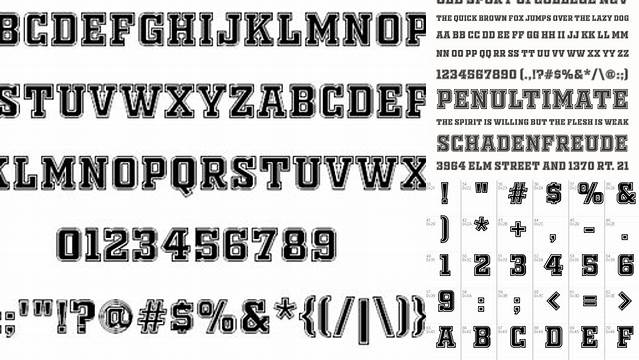
Hey guys! Are you looking to add a touch of classic collegiate charm to your designs? Look no further! The Old Sport 01 College NCV font is here to save the day. This font screams vintage vibes, reminiscent of old-school letterman jackets and university crests. In this comprehensive guide, we'll dive deep into everything you need to know about this fantastic font – from where to download it for free to how to use it effectively in your projects. So, buckle up and let's get started!
What is Old Sport 01 College NCV Font?
Let’s kick things off by understanding what exactly the Old Sport 01 College NCV font is. This font is a display typeface, designed to emulate the classic collegiate or athletic lettering style. Think of those iconic university logos and sports jerseys – that's the aesthetic this font is going for. It typically features bold, blocky letters with a slightly condensed appearance, giving it a strong and impactful presence. The "NCV" in the name likely refers to the specific design characteristics or the creator's naming convention, but the key takeaway is that this font is designed for headings, titles, logos, and anything that needs a bold, sporty feel. This font isn't just about aesthetics; it's about evoking a feeling. The feeling of school spirit, the thrill of the game, and the nostalgia of classic sports imagery. Whether you're designing a poster for a local sports team, creating a logo for a university club, or simply adding a vintage touch to your project, the Old Sport 01 College NCV font can be a powerful tool in your design arsenal. The beauty of this font lies in its versatility. It can be used in a wide range of projects, from digital designs to print materials. Imagine using it for the header of your sports blog, or for the title of a flyer advertising a school event. The possibilities are endless! And the best part? You can often find it available for free download, making it an accessible option for designers of all levels. However, it's always essential to check the licensing terms before using any font, especially for commercial projects. Make sure you're aware of any restrictions or requirements for attribution. But overall, the Old Sport 01 College NCV font is a fantastic choice for adding a touch of vintage flair and athletic spirit to your designs.
Tips for Using Old Sport 01 College NCV Font in Your Designs
Okay, you've got the Old Sport 01 College NCV font installed and ready to go. But how do you actually use it effectively in your designs? This font, with its strong, bold character, is best used for headings, titles, and logos where you want to make a statement. It's not really designed for body text, as its condensed nature can make it difficult to read in large blocks. Think about where you want to grab the viewer's attention. That's where this font shines. Imagine using it for the title of a sports-themed poster, or for the logo of a university club. The key is to use it sparingly and strategically. Don't overwhelm your design with too much of this font. It's best paired with a simpler, more legible font for body text. This creates a nice visual contrast and ensures that your message is clear. When it comes to color, the Old Sport 01 College NCV font looks fantastic in classic collegiate colors like navy blue, crimson red, forest green, and gold. Think about the colors you often see associated with universities and sports teams. These colors will help to reinforce the vintage athletic feel. But don't be afraid to experiment with other color combinations as well! The font can also look great in black and white, or in more modern, unexpected color palettes. Consider the overall tone and style of your design and choose colors that complement the font and your message. In terms of size, the Old Sport 01 College NCV font generally looks best when used at a larger size. This allows its bold, blocky letterforms to really stand out. But again, it's all about balance. You don't want the font to be so large that it overwhelms the rest of your design. Think about the hierarchy of your design and use the font size to guide the viewer's eye. Finally, consider the spacing between the letters and lines of text. Because this font is condensed, it's often helpful to increase the letter spacing (also known as tracking) slightly to improve readability. You may also need to adjust the line height (also known as leading) depending on the size of the font and the amount of text you're using. By following these tips, you can effectively use the Old Sport 01 College NCV font to create designs that are both visually appealing and communicate your message clearly. Remember, it's all about experimentation and finding what works best for your particular project. Have fun and get creative!
Alternatives to Old Sport 01 College NCV Font
So, the Old Sport 01 College NCV font is great, but maybe it's not exactly what you're looking for. Or perhaps you want to explore some similar options to add variety to your designs. No problem! There are plenty of other fonts out there that capture the same vintage collegiate spirit. Let's take a look at some alternatives. One popular option is Collegiate Heavy Outline. As the name suggests, this font also has a strong, bold, blocky style, but it features an outline effect, which can add a different visual dimension to your designs. It's a great choice for logos, titles, and headings where you want a bold and impactful look. Another excellent alternative is Varsity. This font is another classic collegiate typeface that's widely used in sports-themed designs. It has a slightly more rounded appearance than the Old Sport 01 College NCV font, which can give it a friendlier and more approachable feel. Varsity is a versatile font that can be used in a variety of projects, from posters and flyers to websites and social media graphics. If you're looking for something with a slightly more vintage and handcrafted feel, consider a font like Berman. This font has a hand-drawn quality that adds a touch of authenticity and charm to your designs. It's a great choice for projects where you want to convey a sense of history or tradition. Another option is Bebas Neue. While not strictly a collegiate font, Bebas Neue shares the same tall, condensed letterforms as the Old Sport 01 College NCV font. It's a clean and modern sans-serif font that can be used in a wide range of projects. Bebas Neue is a particularly good choice for designs that need a contemporary feel while still retaining a bold and impactful presence. When choosing an alternative font, consider the overall style and tone of your design. What message are you trying to convey? What feeling do you want to evoke? Think about the specific characteristics of each font and how they might contribute to your overall design goals. And don't be afraid to experiment! Try out different fonts and see what works best for your project. There are so many fantastic fonts out there, and the perfect one is waiting to be discovered.
So, there you have it! A complete guide to the Old Sport 01 College NCV font. From its classic collegiate style to where to download it for free and how to use it effectively, you're now equipped with all the knowledge you need to add this fantastic font to your design toolkit. Remember, the Old Sport 01 College NCV font is a powerful tool for evoking a sense of nostalgia, school spirit, and athletic energy. It's perfect for headings, titles, logos, and any design element where you want to make a bold statement. Just remember to use it strategically, pairing it with a more legible font for body text and considering the overall color palette and style of your design. We've also explored some fantastic alternatives, such as Collegiate Heavy Outline, Varsity, Berman, and Bebas Neue, giving you even more options to choose from when creating your designs. Ultimately, the key to great design is experimentation and finding what works best for your particular project. Don't be afraid to try new things, explore different fonts, and push your creative boundaries. And always remember to respect font licenses and give credit to the designers when required. The world of typography is vast and exciting, and the Old Sport 01 College NCV font is just one small piece of the puzzle. But with the knowledge and tips you've gained in this guide, you're well on your way to creating stunning designs that capture the essence of classic collegiate style. So go forth, download the font, and let your creativity shine! Happy designing, guys!